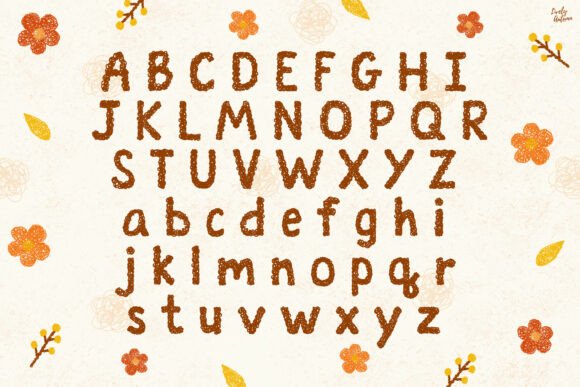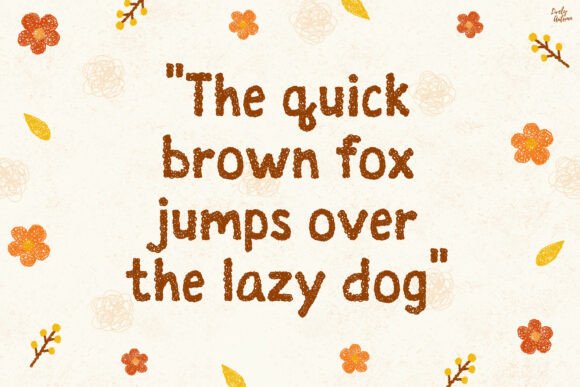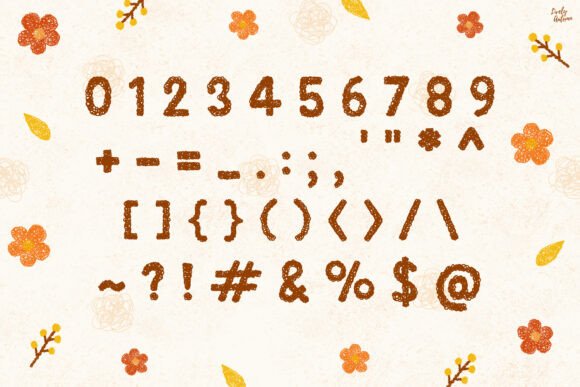
Get Ready to Fall in Love with Fluff Autumn Font
Do you ever find yourself sitting in front of your computer, staring at a blank page, and suddenly, the perfect font pops into your head? That’s exactly what happened to me when I stumbled upon the Fluff Autumn Font. Its playful, handwritten style with fun doodle lines on each letter instantly caught my attention.
This charming font is perfect for adding a personal touch to your personal projects, from invitations and posters to social media graphics and journals. With the Fluff Autumn Font, you can add a dash of whimsy and creativity to your designs, making them truly one-of-a-kind. Whether you’re a seasoned designer or a beginner, this font is a valuable addition to your toolkit, offering endless possibilities for self-expression and creativity.
- Unique Characteristics: The font features a unique, hand-drawn style with subtle texture and imperfections, giving it a natural, autumnal feel.
Fluff Autumn Font Review
Overall, I’m quite impressed with the Fluff Autumn Font. ✨ It’s perfect for adding a touch of warmth and coziness to your designs, especially during the autumn season. The font’s unique blend of rounded and pointed edges gives it a charming, rustic feel that’s sure to grab attention.
Here are some of the things I love about Fluff Autumn Font:
- ✨ The font’s versatility – it works well for both headlines and body text, making it a great choice for a variety of design projects.
- ✨ The subtle texture and gradient effects add depth and visual interest to the font.
- ✨ The font’s weight and line spacing make it easy to read, even at smaller font sizes.
However, I do have a few concerns:
- ⚠️ The font’s bold weight can be a bit too bold, overpowering the design in some cases.
- ⚠️ The font’s rounded edges can sometimes be difficult to read at very small font sizes.
Overall, I would highly recommend the Fluff Autumn Font for anyone looking to add a seasonal touch to their designs. While it’s not perfect, its unique charm and versatility make it a great choice for a wide range of projects.
For the most effective use of the Fluff Autumn Font, use it in designs that evoke a sense of warmth and coziness, such as:
– Fall-themed invitations and greeting cards.
– Cozy coffee shop menus and branding.
– Autumn-themed social media graphics and posters.
Remember to balance the font with other design elements to avoid overwhelming the viewer.